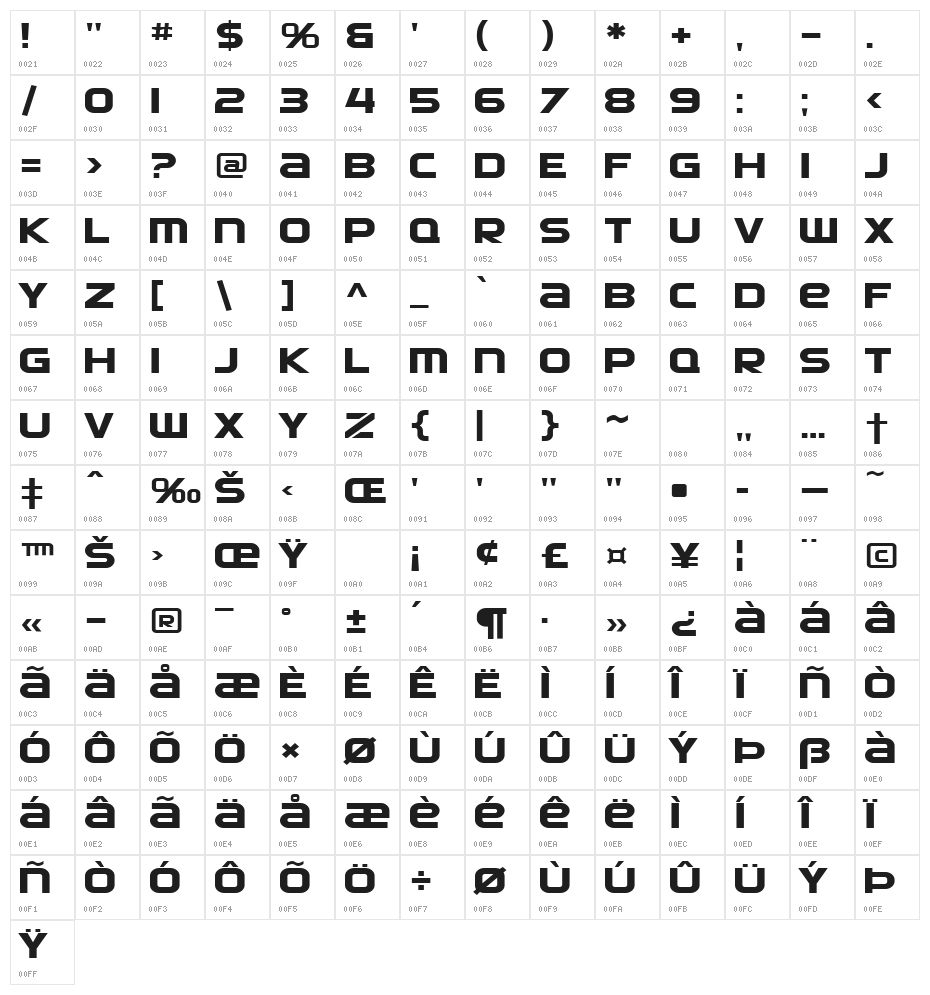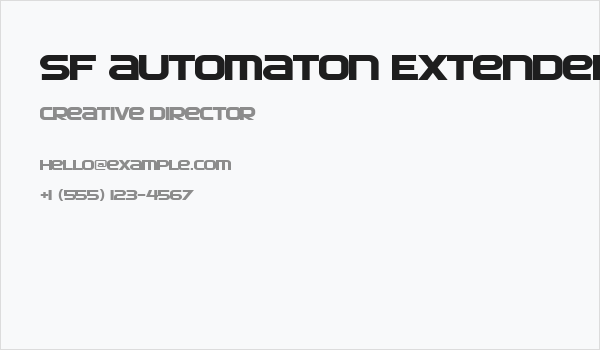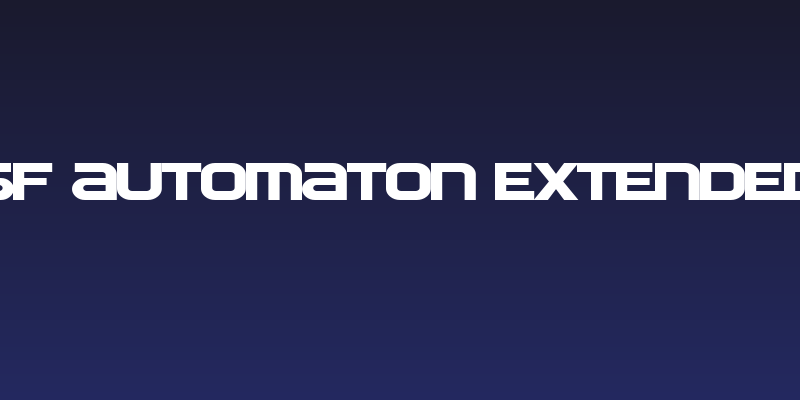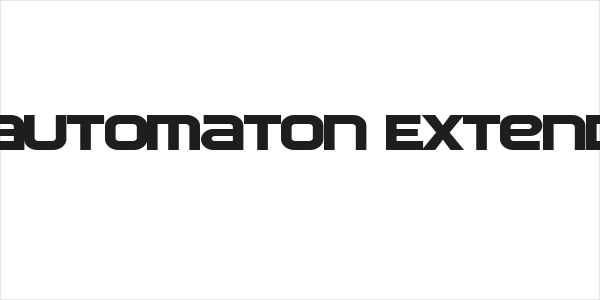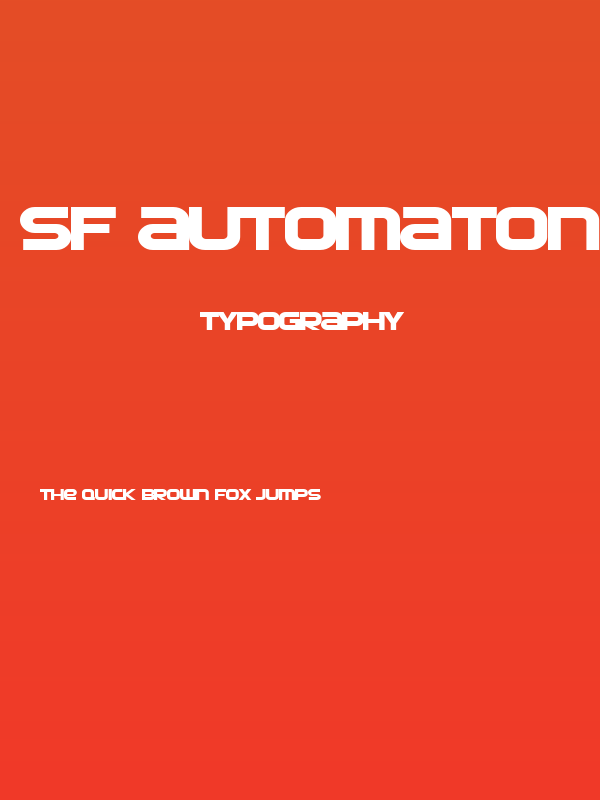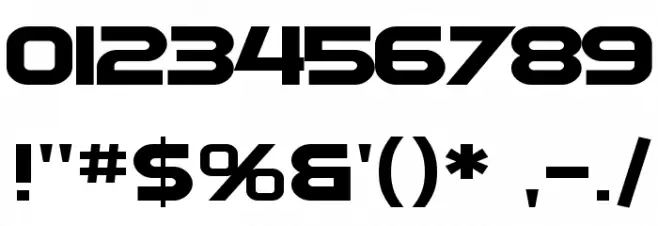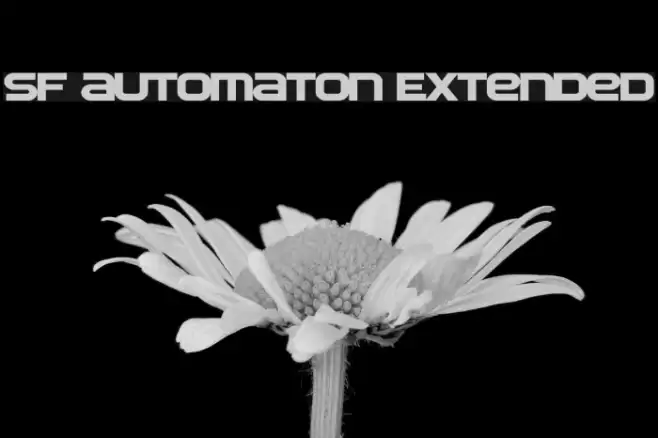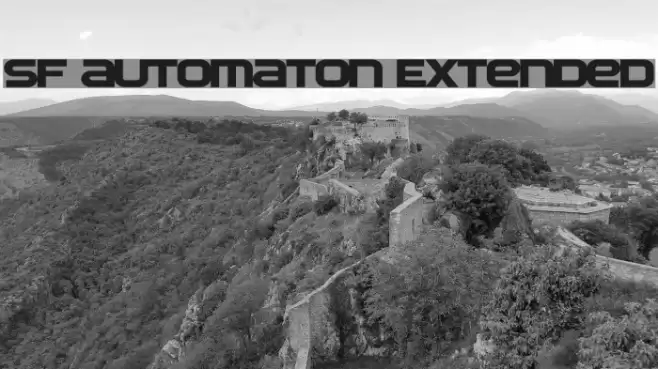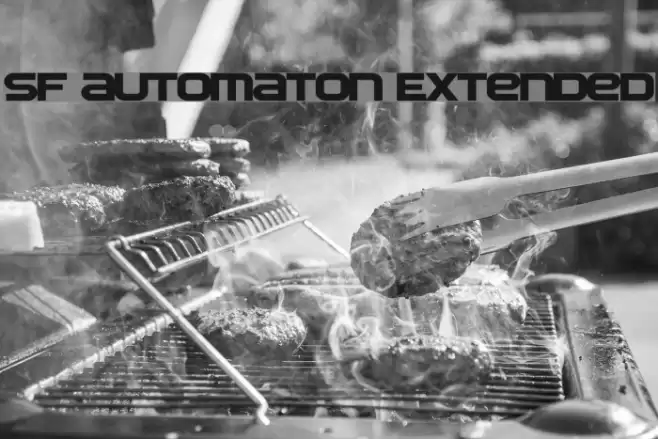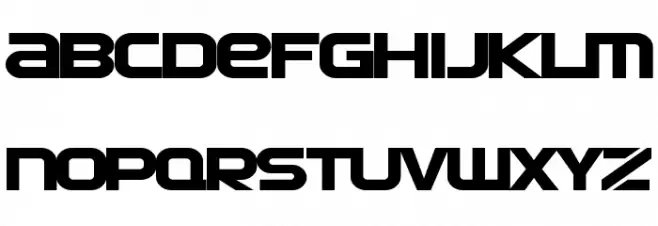
SF Automaton Extended Font
SF Automaton Extended Description
This font features a futuristic and geometric design, characterized by its bold and angular letterforms. The characters are constructed with a consistent stroke weight, giving it a uniform and cohesive appearance. The uppercase and lowercase letters share a similar structure, enhancing readability while maintaining a distinctive style. The numerals and special characters are designed to match the overall aesthetic, making it suitable for digital and tech-oriented projects. The font's modern and sleek look is ideal for creating impactful headlines and logos.
| Proposed Projects | Ideal for technology branding, video game interfaces, sci-fi movie posters, and modern digital designs. |